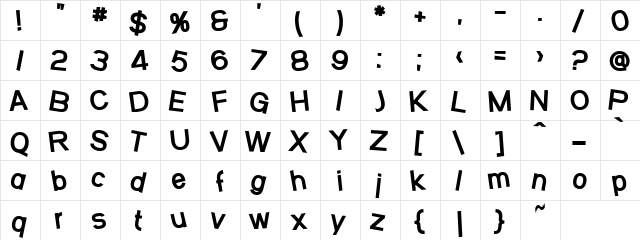
Veenu Regular
Design Context for Veenu Typeface
Veenu offers clean, dependable letterforms without strong stylistic allegiance, making it a practical choice for designers who need flexibility.